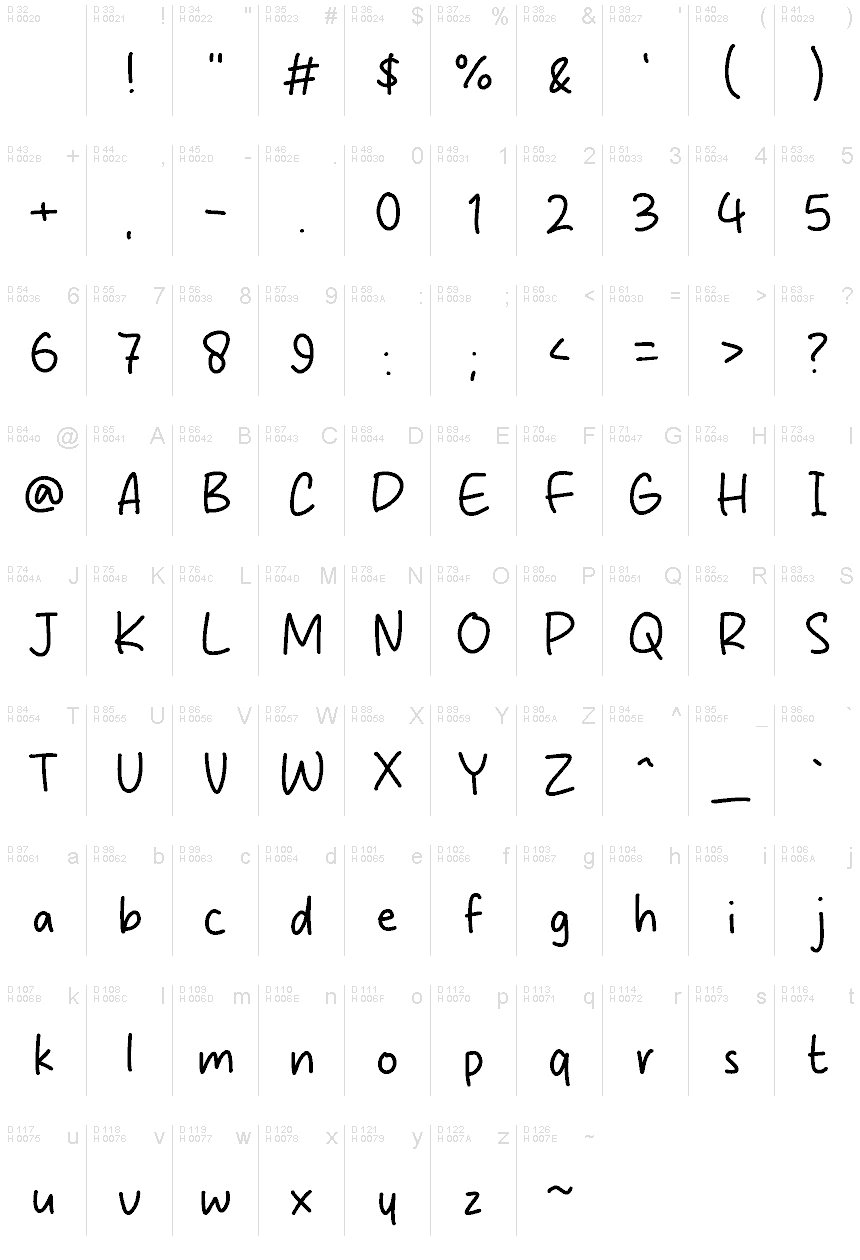
Miracle Spring
Miracle Spring font is a delightful handwritten typeface from MJType, exuding a casual and approachable charm. Its modern aesthetic and friendly appearance make it highly adaptable to various design needs while maintaining an engaging visual presence.